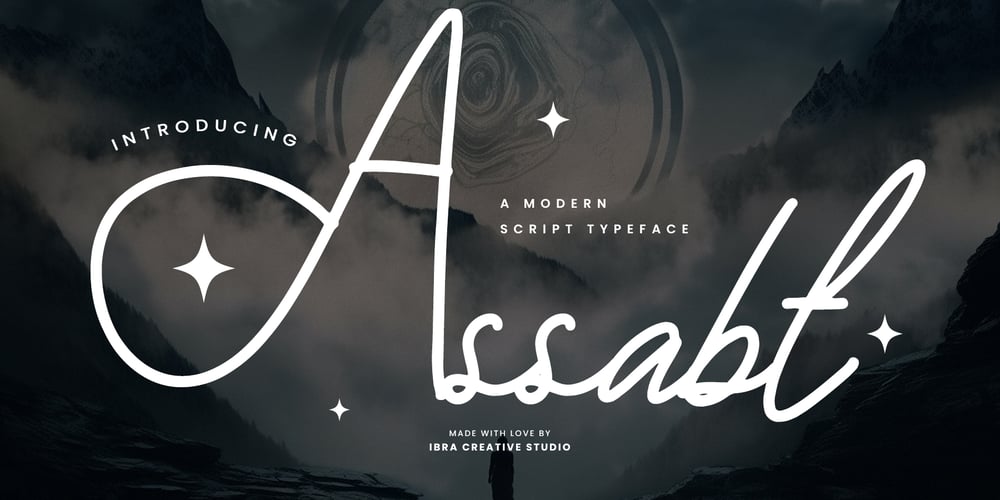
Assabt
Assabt font
Assabt Font Family was designed by Roisatul Azizah and published by IbraCreative. Assabt contains 1 styles and family package options. Assabt – A Modern Script TypefaceAssabt, a modern script typeface, effortlessly captures the essence of contemporary elegance through its dynamic and fluid design. Each letter is a testament to the perfect harmony of graceful curves and precise lines, creating a sophisticated and versatile script that seamlessly adapts to various design contexts. The strokes in Assabt exude a sense of energy and movement, adding a touch of modernity to the timeless art of script typography. This typeface is characterized by its balanced fusion of traditional script aesthetics and a fresh, innovative approach, making it an ideal choice for those seeking to infuse their projects with a blend of classic charm and contemporary flair. Whether employed in branding, invitations, or digital media, Assabt brings a unique and stylish personality to the written word.Assabt is perfect for branding projects, logo, wedding designs, social media posts, advertisements, product packaging, product designs, label, photography, watermark, invitation, stationery, game, fashion and any projects.Fonts include multilingual support for; Afrikaans, Albanian, Czech, Danish, Dutch, English, Estonian, Finnish, French, German, Hungarian, Italian, Latvian, Lithuanian, Norwegian, Polish, Portuguese, Slovak, Slovenian, Spanish, Swedish.